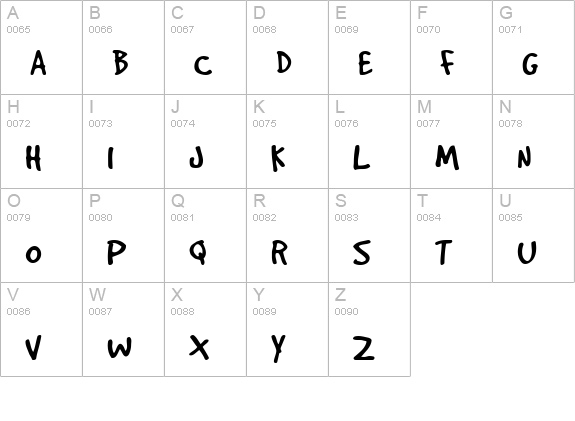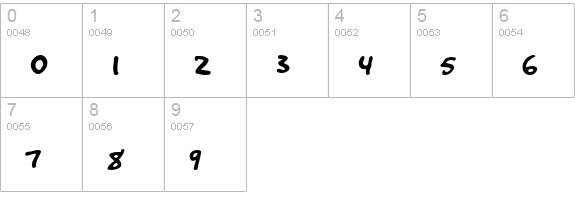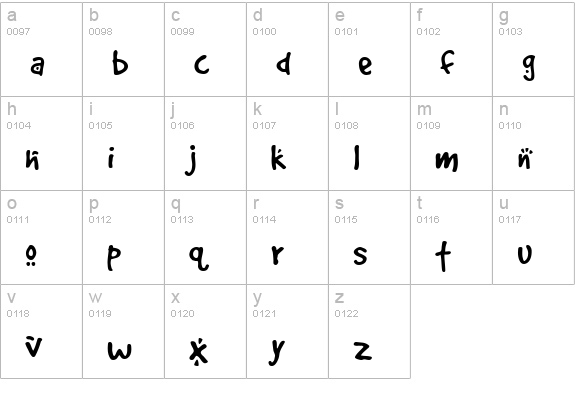
GoodDog Cool Font Details
GoodDog Cool font is a charming and versatile typeface that exudes a playful and friendly vibe. With its rounded edges and quirky design, this font is perfect for adding a touch of whimsy to your projects. Whether you're working on a children's book, a poster design, or a branding project, GoodDog Cool font is sure to make your text stand out. What's even better is that GoodDog Cool font is available for free download at FontsMarket.com. Simply visit the website to get your hands on this delightful font and start incorporating it into your creative endeavors today. So go ahead and add a dash of fun to your designs with GoodDog Cool font – your audience will thank you for it!